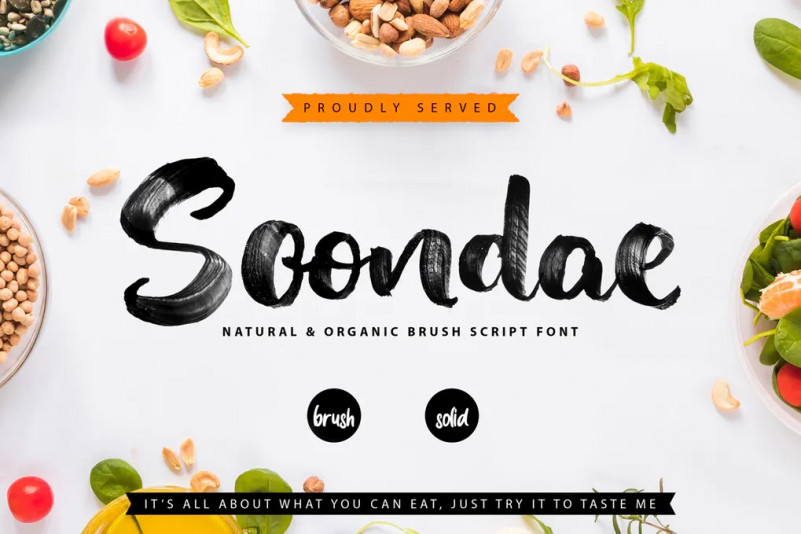
Soondae Natural & Organic Font
Soondae | Natural & Organic Brush Font with a calligraphy style, So beautiful on invitation like greeting cards, branding materials, business cards, quotes, posters, and more!